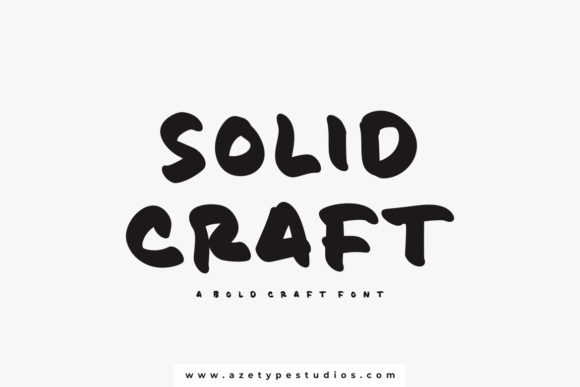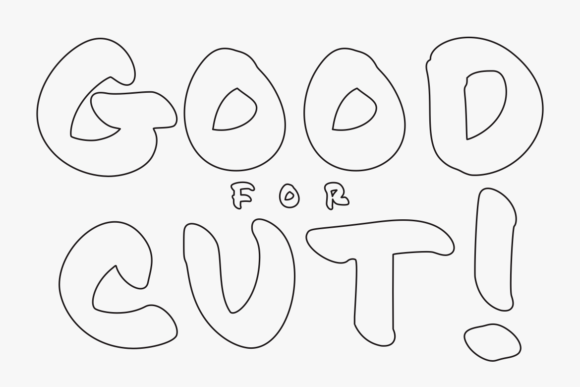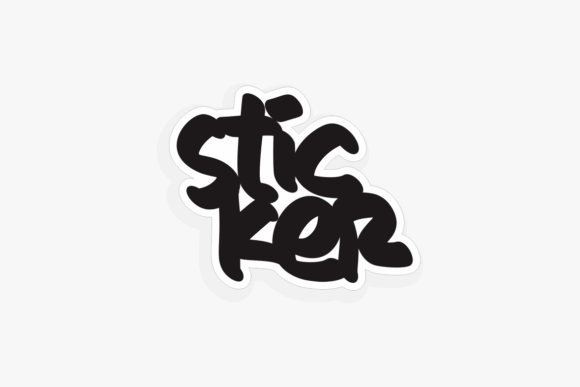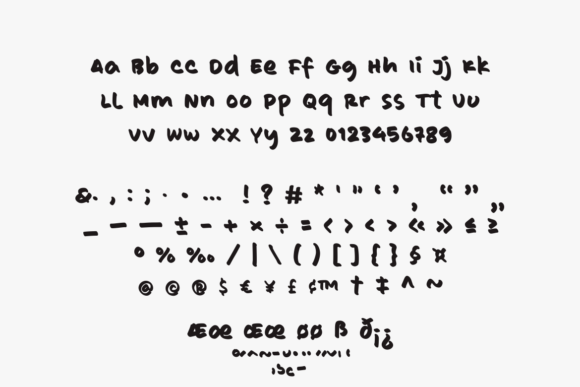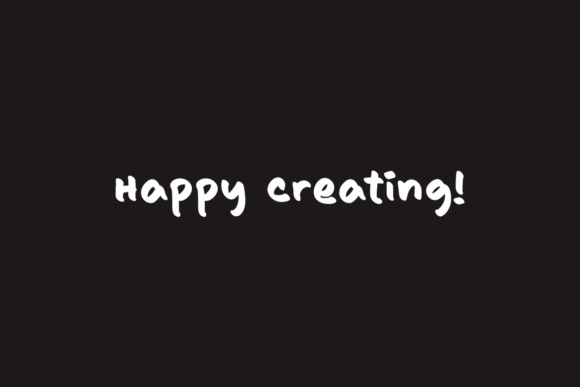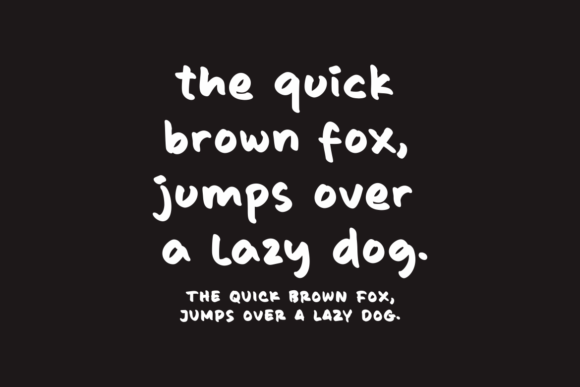
Solid Craft Font
About Solid Craft Font
Solid Craft is a thick and quirky handwritten font. Its casual charm makes it appear wonderfully down-to-earth, readable, and ultimately incredibly versatile. Solid Craft will look outstanding in any context, whether it’s being used on busy backgrounds or as a standalone headline!